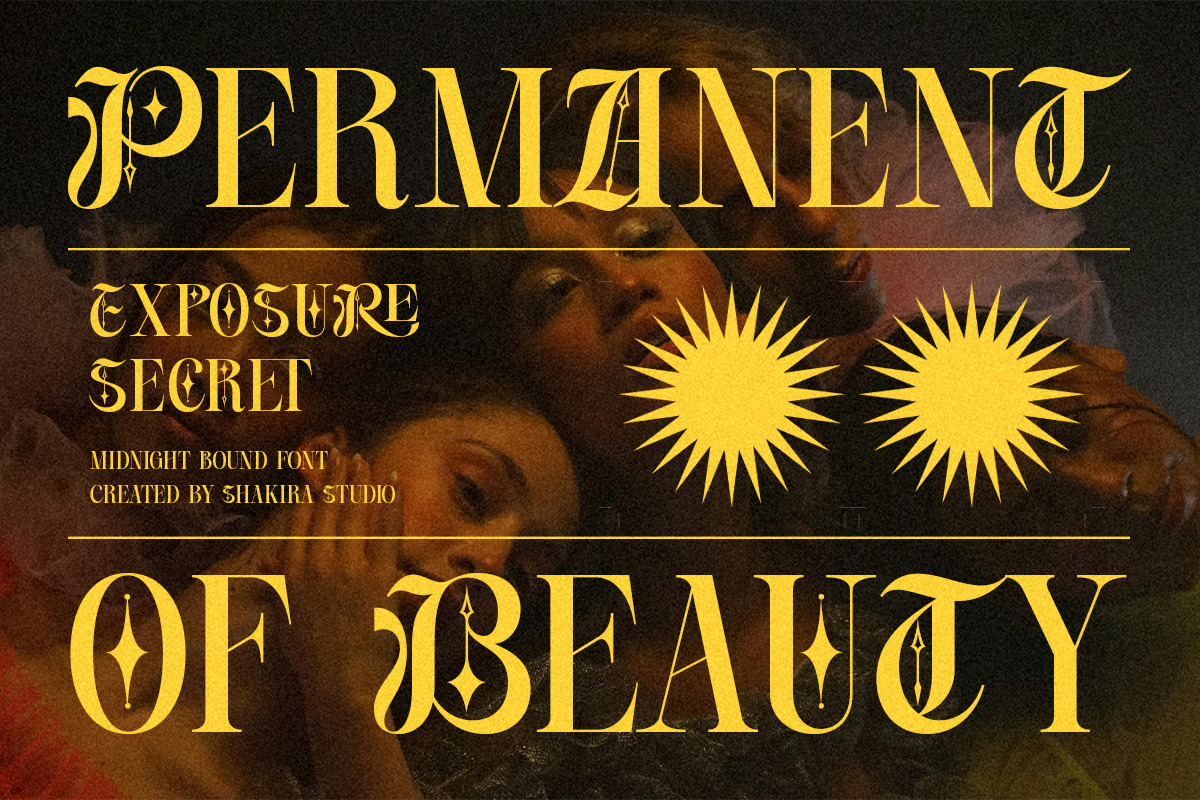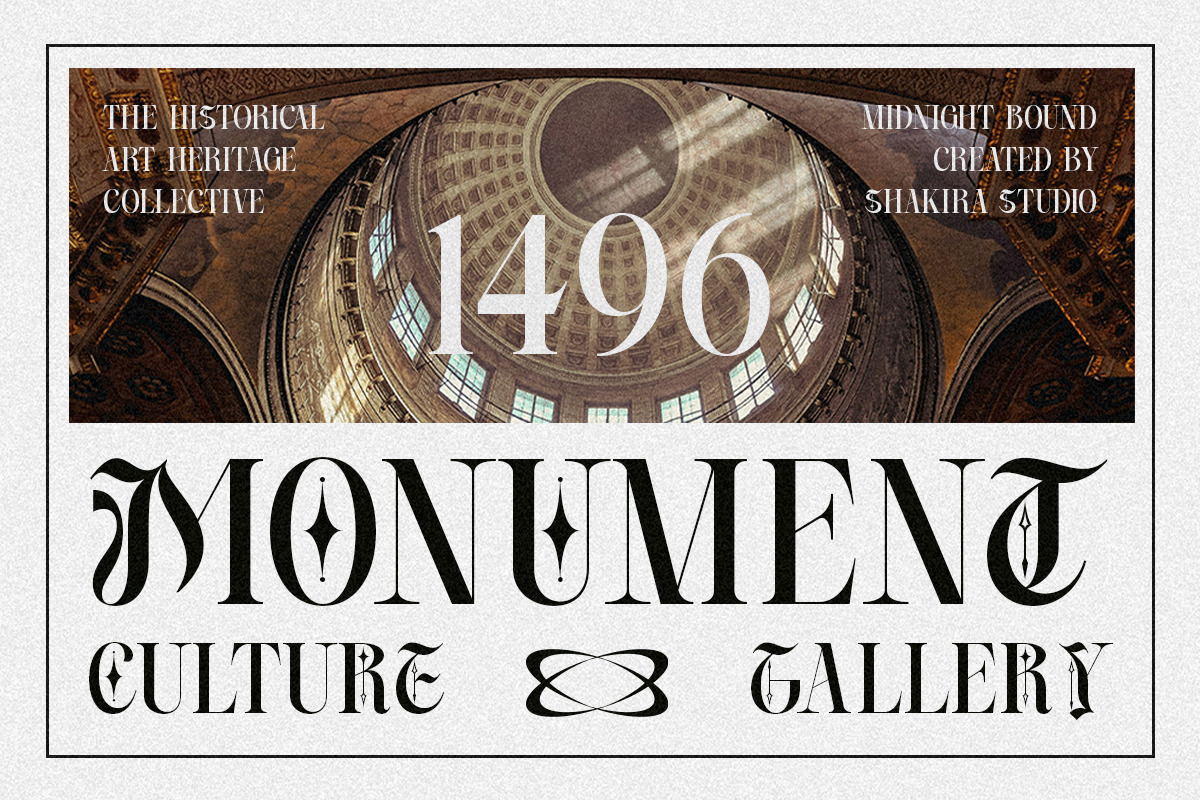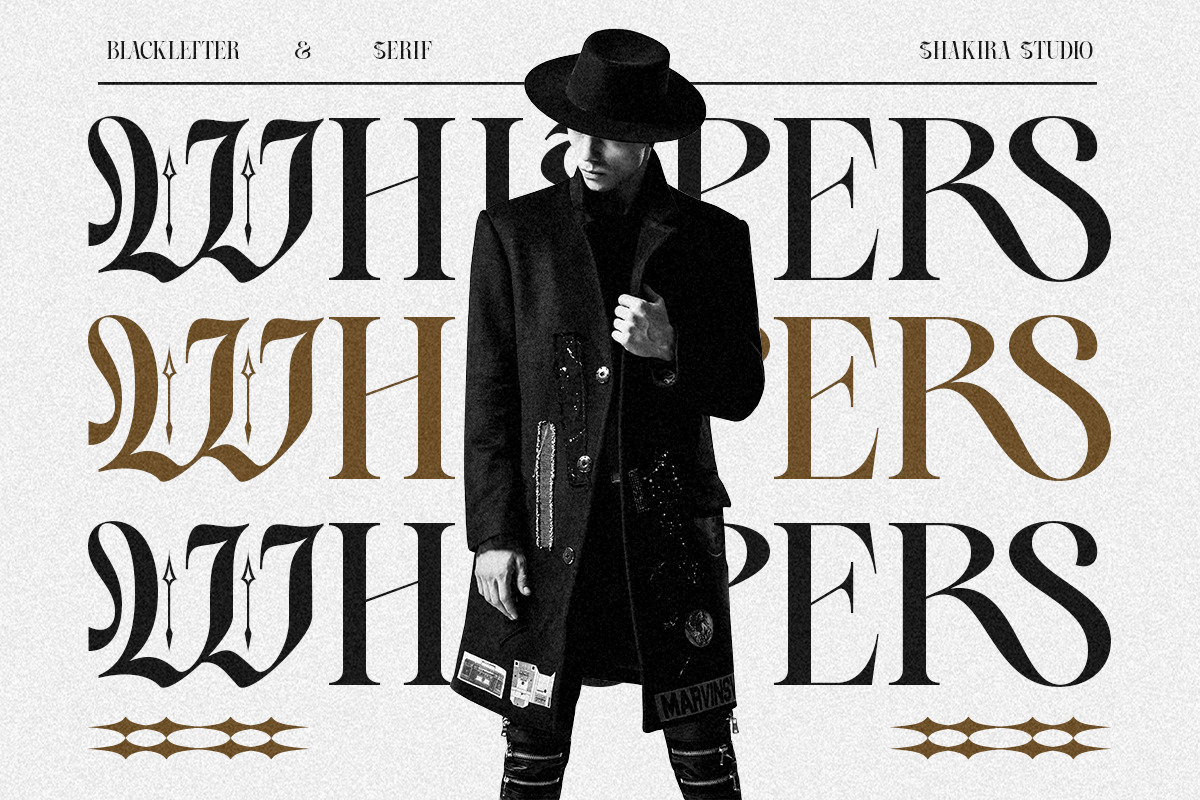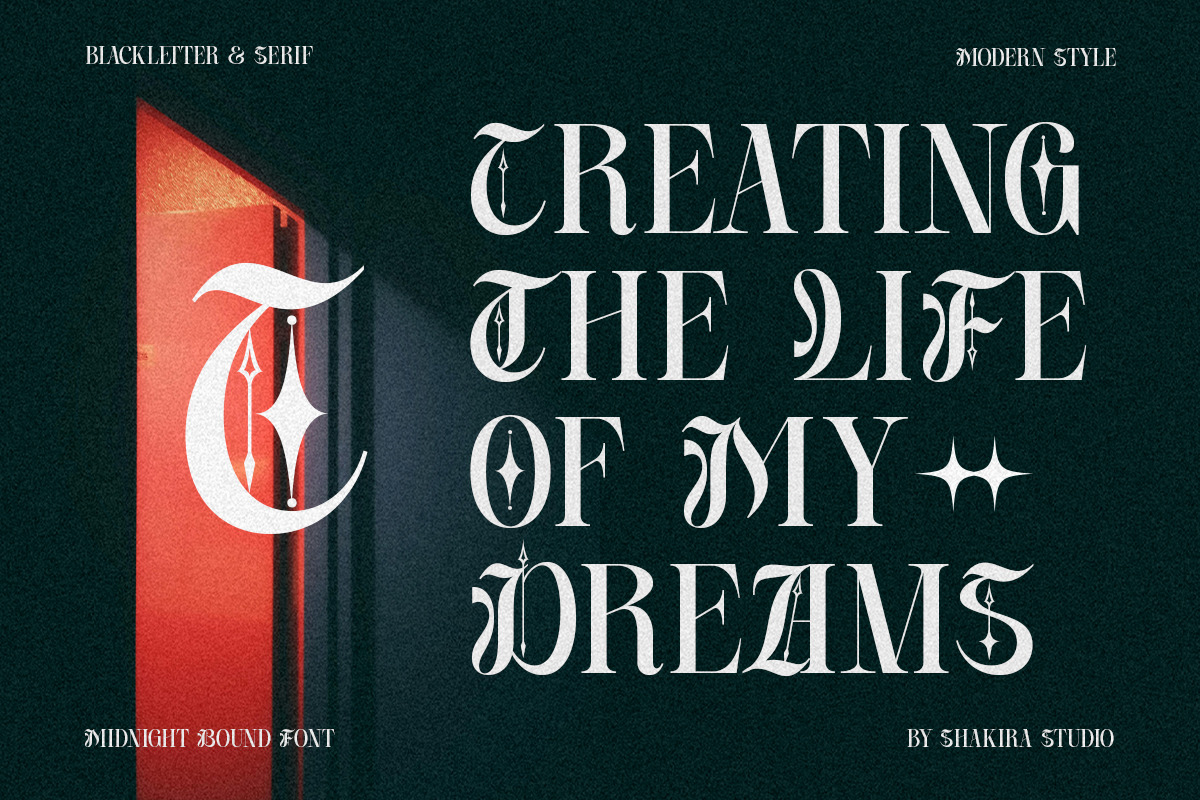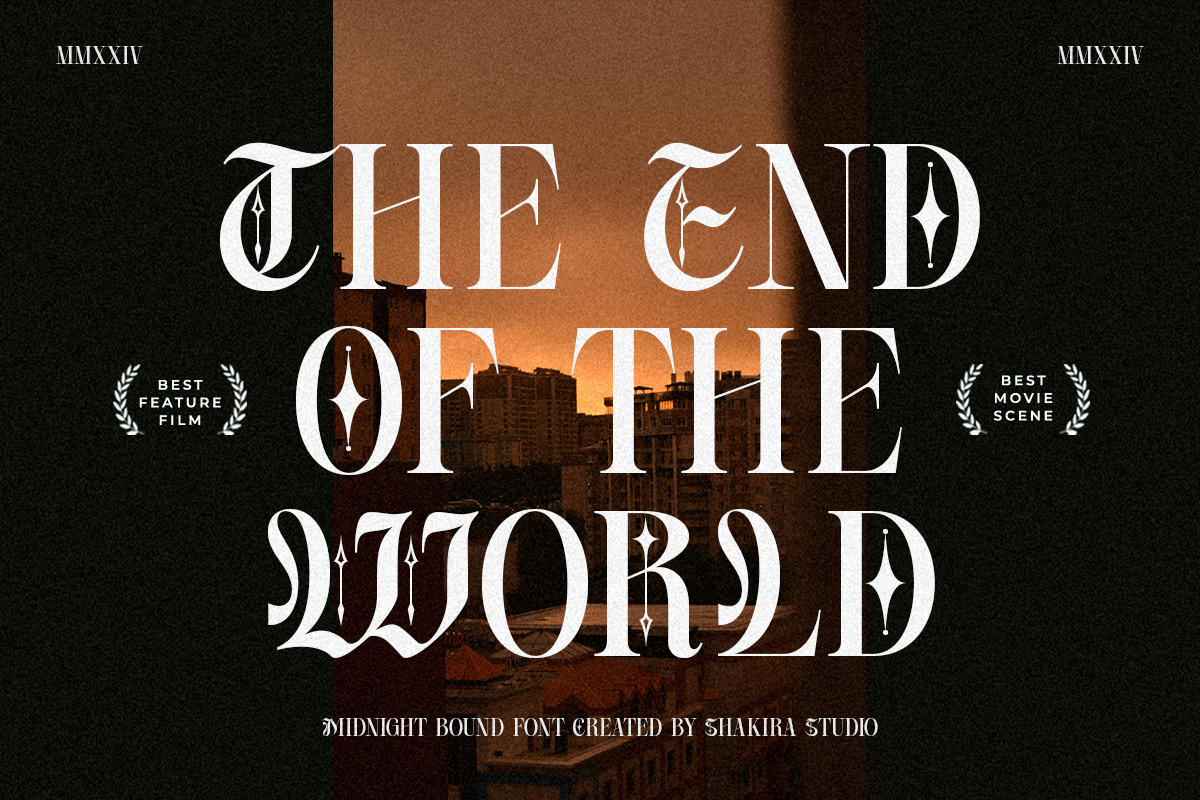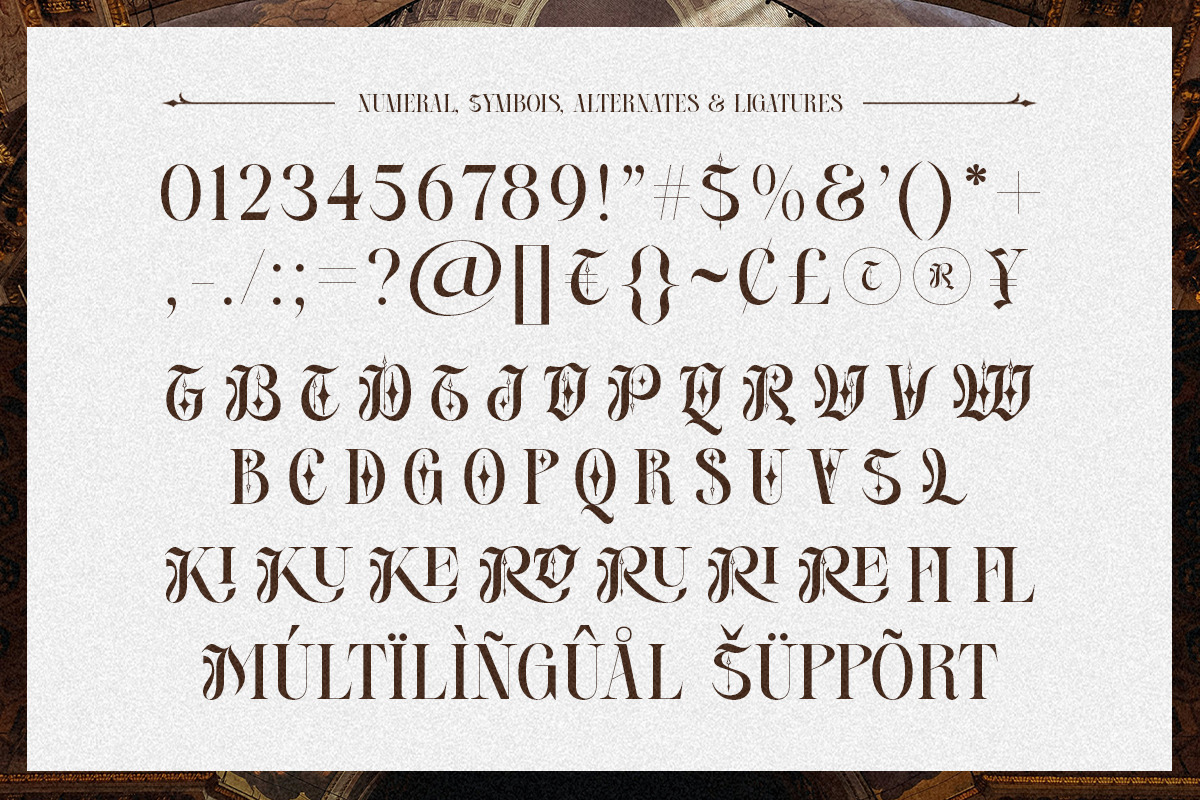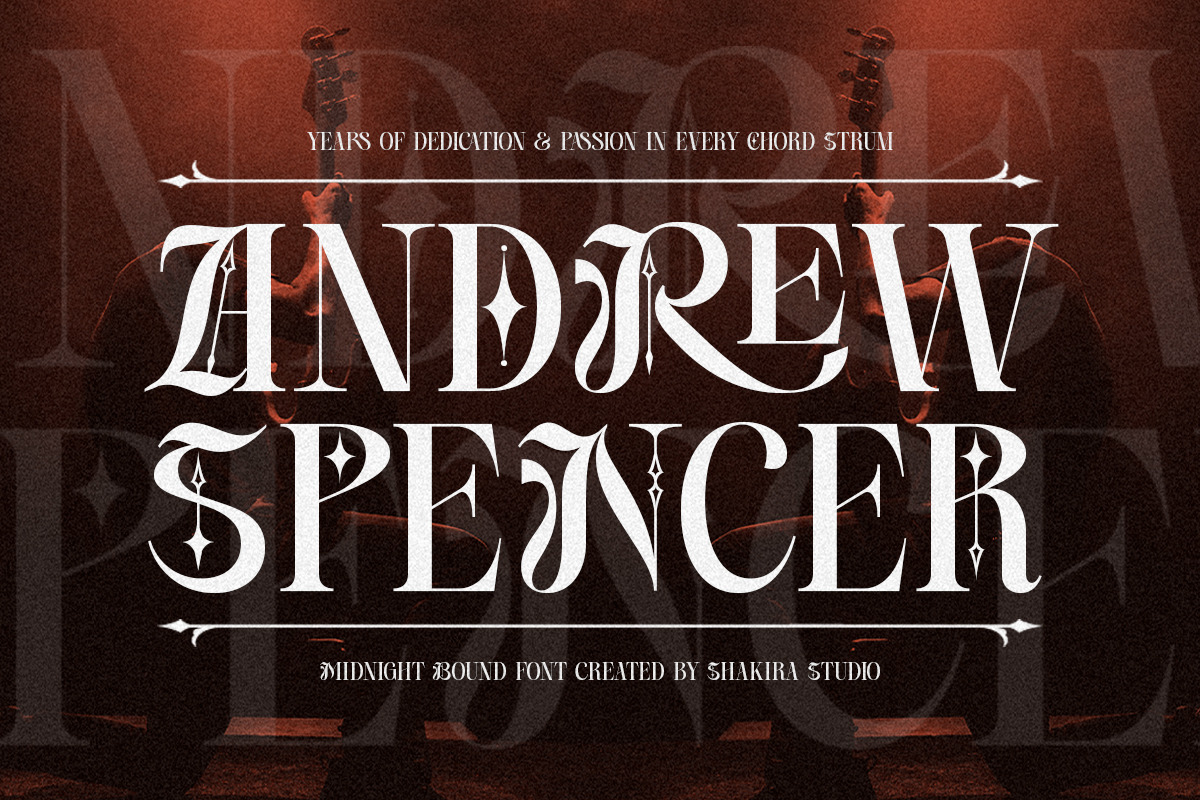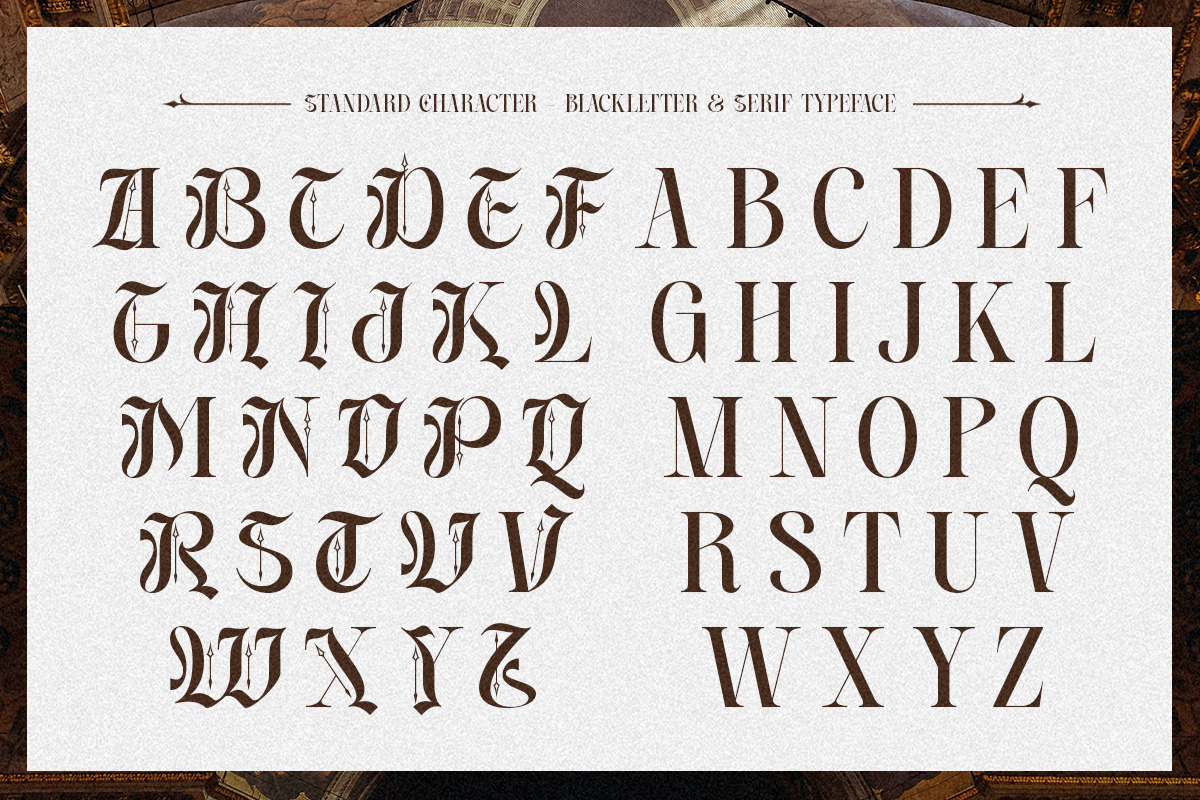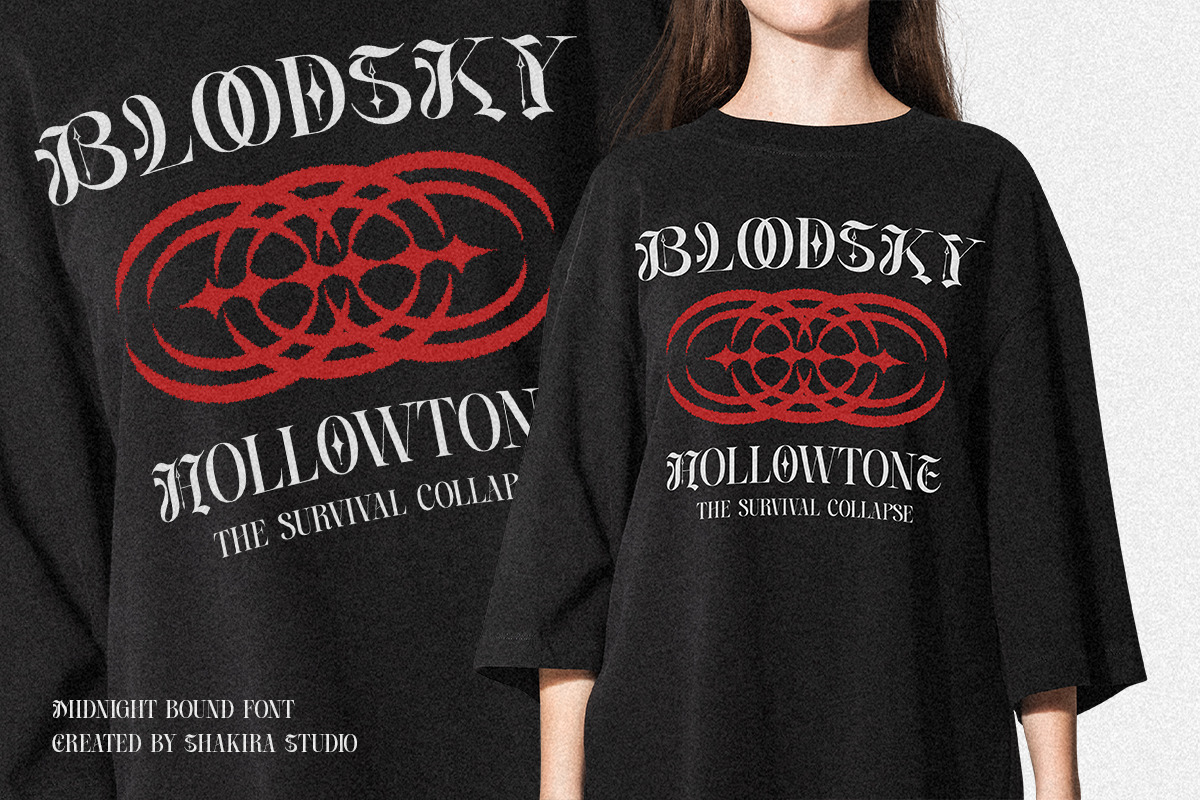
Midnight Bound - Blackletter x Serif
"Introducing 'Midnight Bound', a striking typeface where the drama of blackletter meets the refinement of serif. Crafted for creators who dare to impress, this font encapsulates a bold fusion that is both historic and modern. Whether designing eye-catching logos, compelling editorial content, or dynamic digital interfaces, 'Midnight Bound' delivers with unmatched style. Its richly detailed characters and inherent sophistication make it a go-to for any design endeavor that aims to leave a lasting impression. Transform your projects with 'Midnight Bound'—where every stroke tells a story."
- Opentype features ( ligature, alternate )
Multilingual character supports : (Afrikaans, Albanian, Catalan, Croatian, Czech, Danish, Dutch, English, Estonian, Finnish, French, German, Hungarian, Icelandic, Italian, Lithuanian, Maltese, Norwegian, Polish, Portuguese, Slovenian, Spanish, Swedish, Turkish, Zulu)